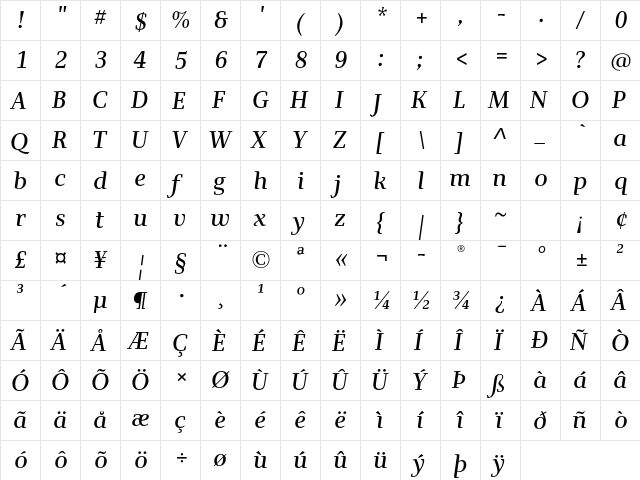
Alfon MD Medium Italic
| Foundry | Terminal Design Inc. |
| Designer | James Montalbano |
Design Context for Alfon MD Typeface
Alfon MD is a composed and adaptable typeface that performs quietly and consistently across a wide range of design contexts. The dynamic lean of this cut emphasises speed and emphasis in any layout.
Pro Tip: Use Alfon MD for emphasis, pull quotes, and subheadings where its slanted energy can add rhythm to the layout.